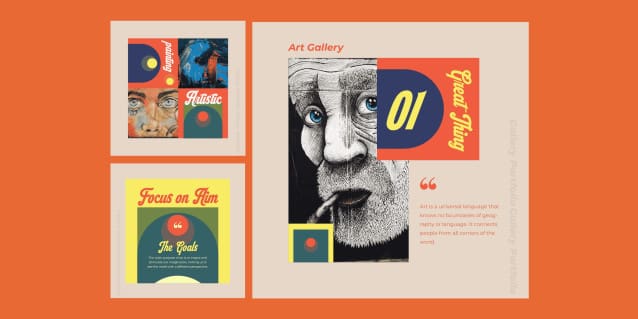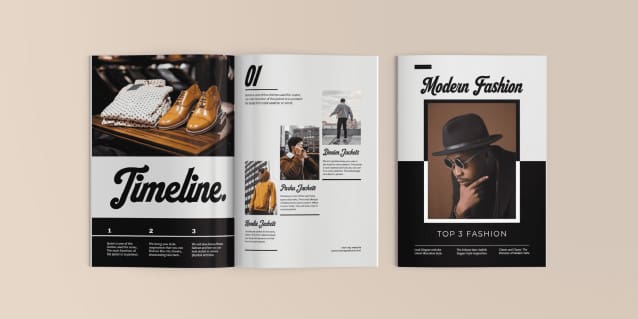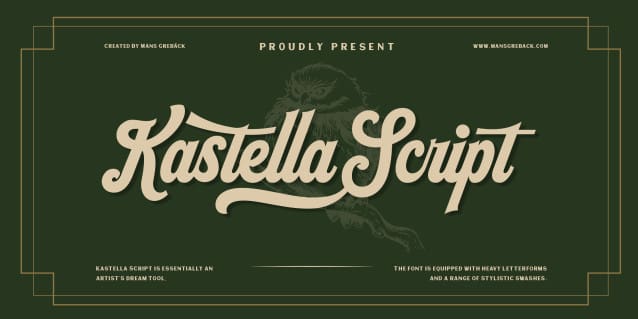
Kastella Script Font
Kastella Script Font is an artist’s dream tool, to accentuate the piece of art that your graphic design is. Use it to make classic American logo with a sporty look.
Use underscore _ to make an underline.
Example: Bea_uty
Use multiple underscore for different swashes.
Example: Super____human